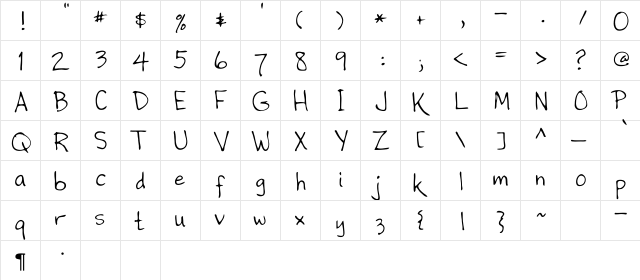
Bowfin Regular
Design Context for Bowfin Typeface
Bowfin is a composed and adaptable typeface that performs quietly and consistently across a wide range of design contexts.